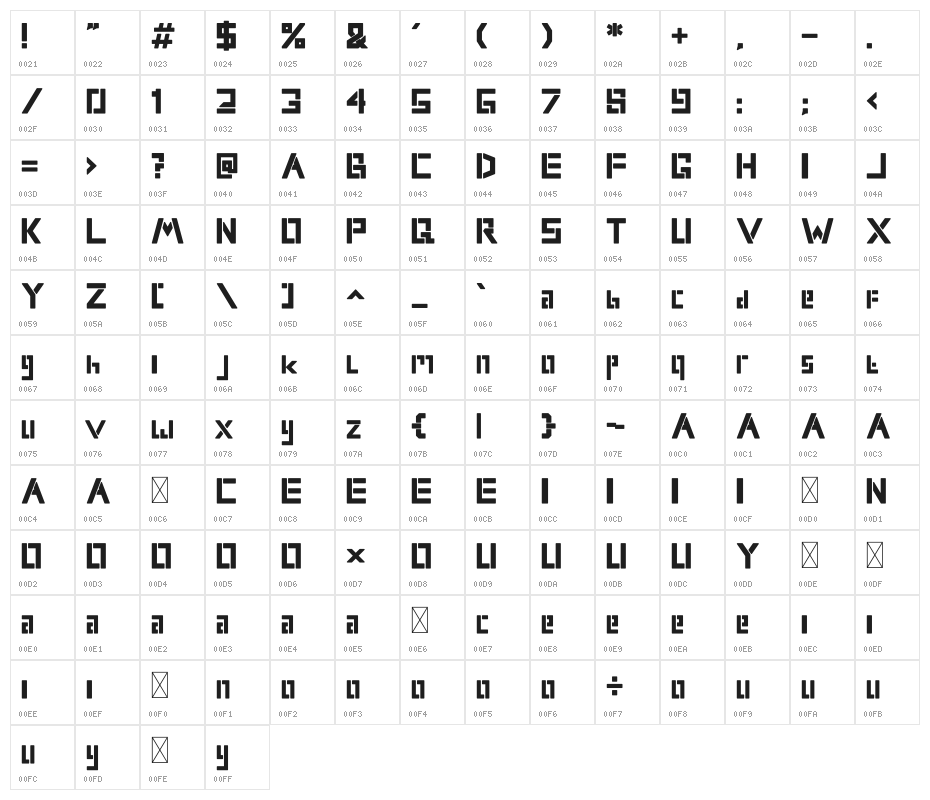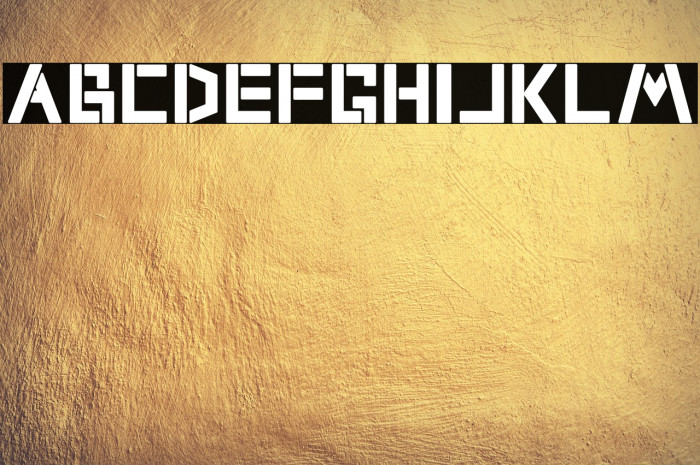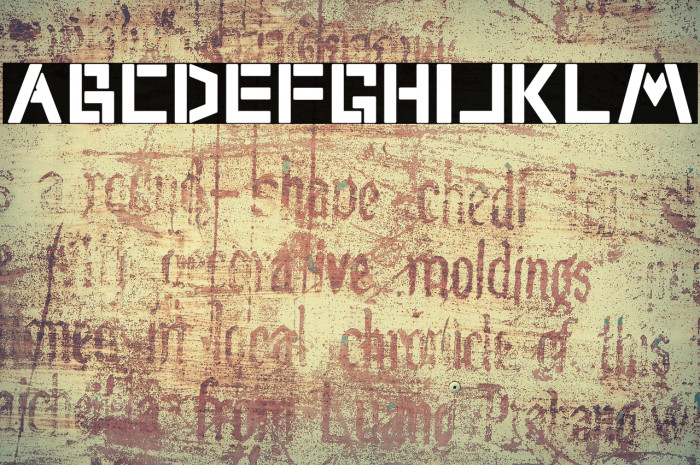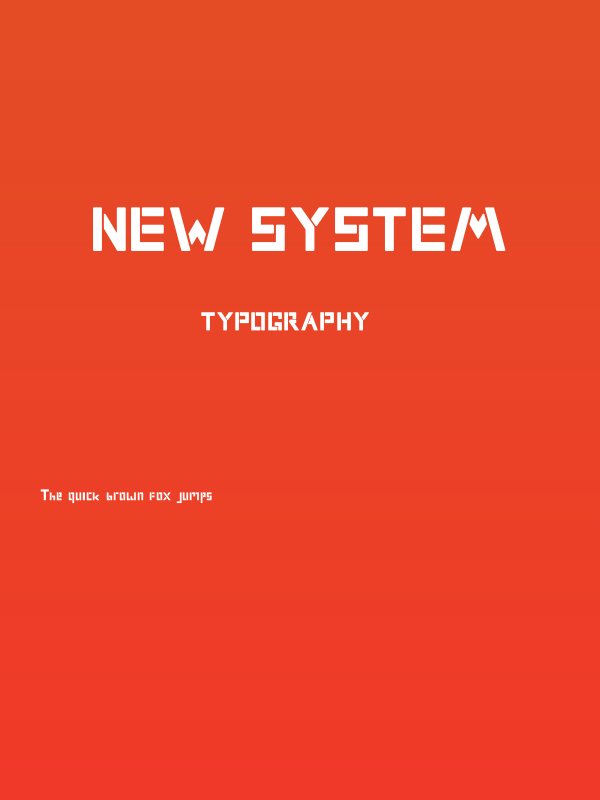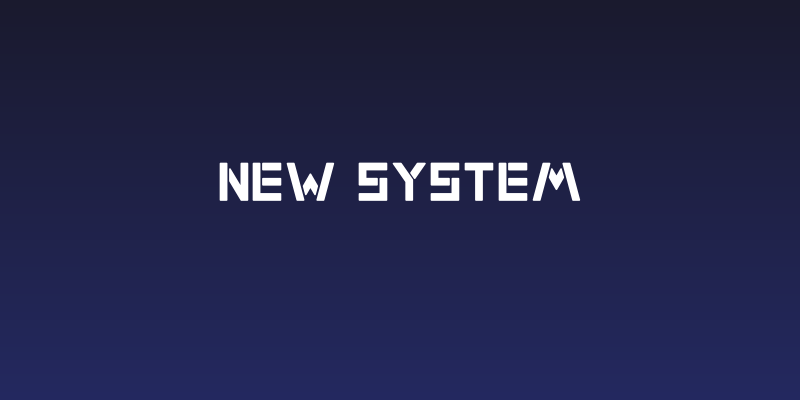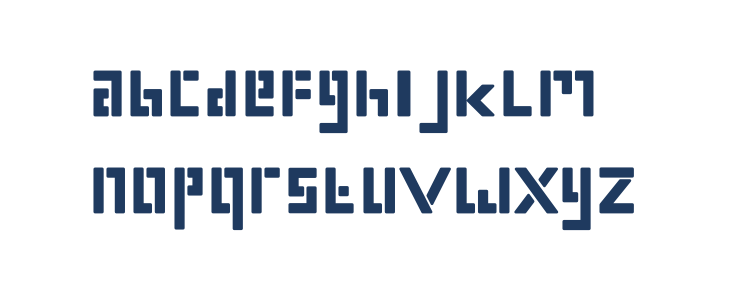
New System Font
New System Description
This font features a bold, geometric design with a futuristic and industrial feel. The characters are constructed with sharp angles and straight lines, creating a sense of precision and modernity. The uppercase and lowercase letters maintain a consistent style, with the lowercase mirroring the uppercase in form but reduced in size. Numbers and special characters follow the same angular and bold aesthetic, ensuring uniformity across all glyphs. The font's design is striking and attention-grabbing, making it suitable for projects that require a strong visual impact.